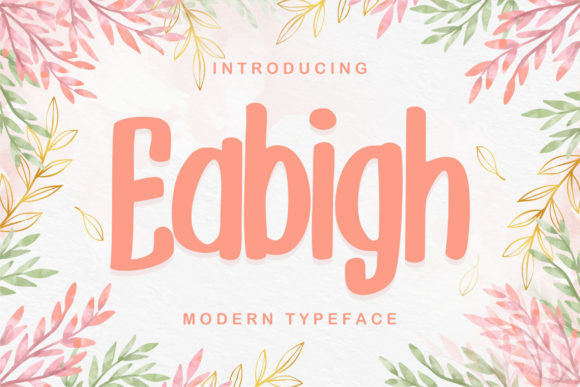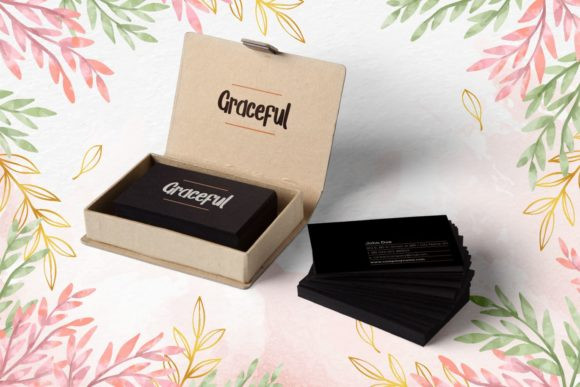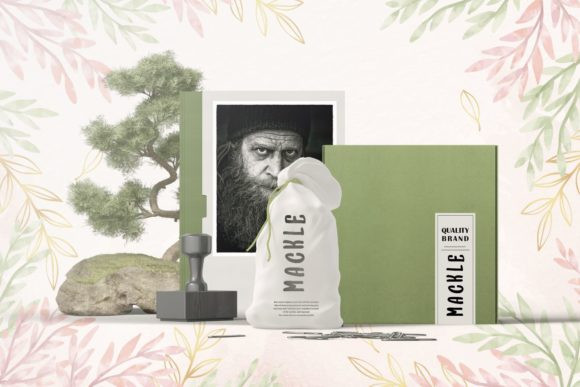
Eabigh Font
Eabigh is a cute display font, carefully handcrafted to become a true favorite. Its casual charm makes it appear wonderfully down-to-earth, readable and, ultimately, incredibly versatile. This font will look outstanding in any context, whether it’s being used on busy backgrounds or as a standalone headline!